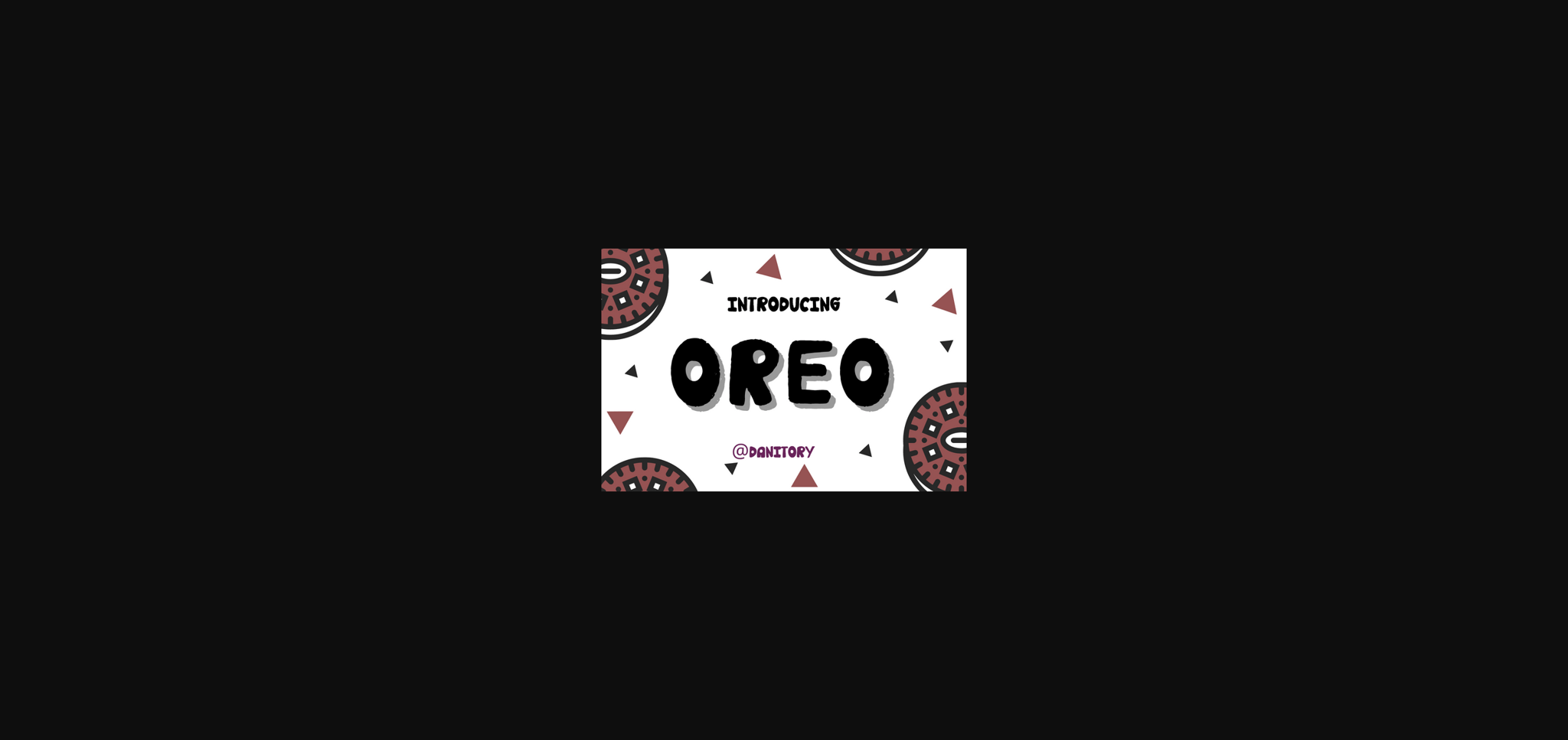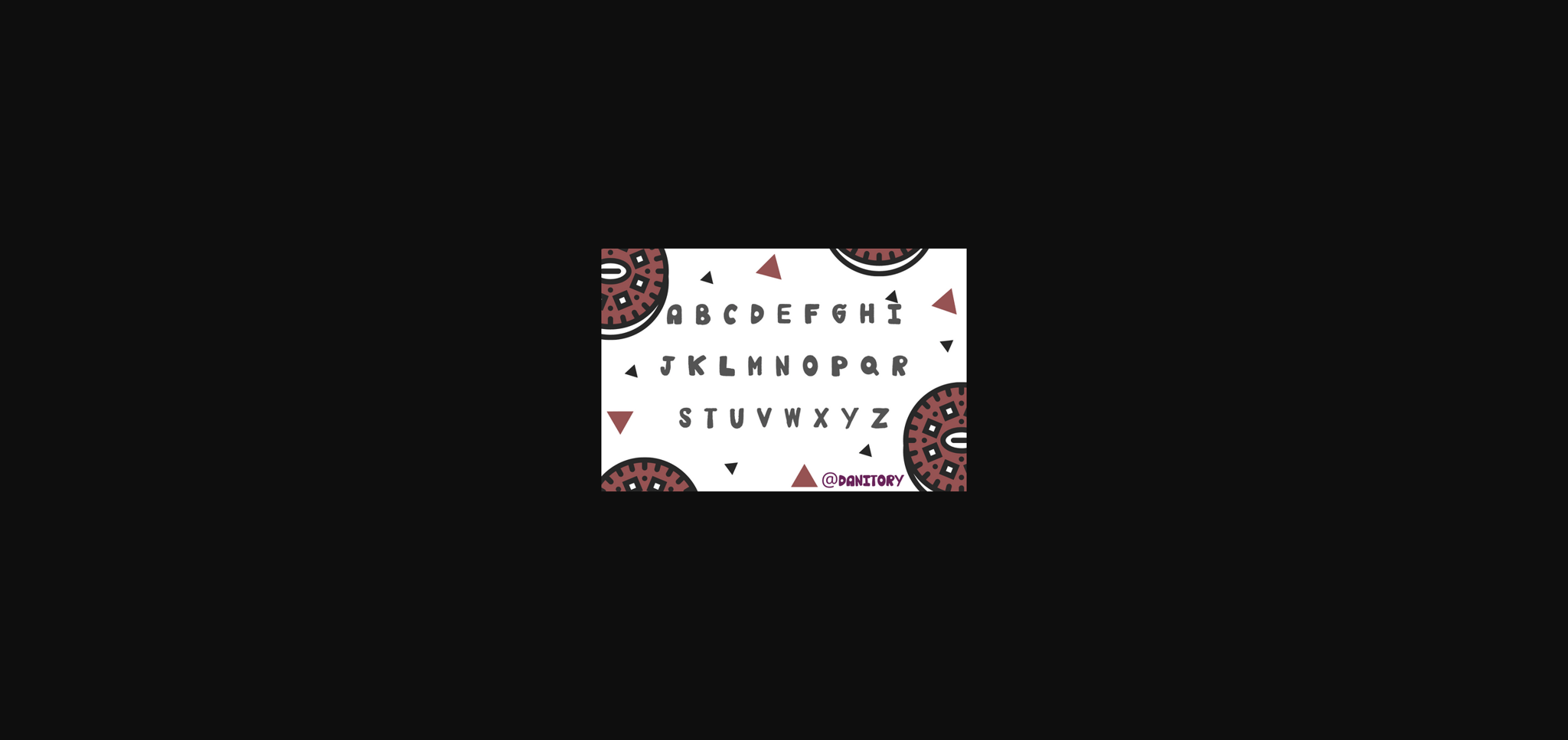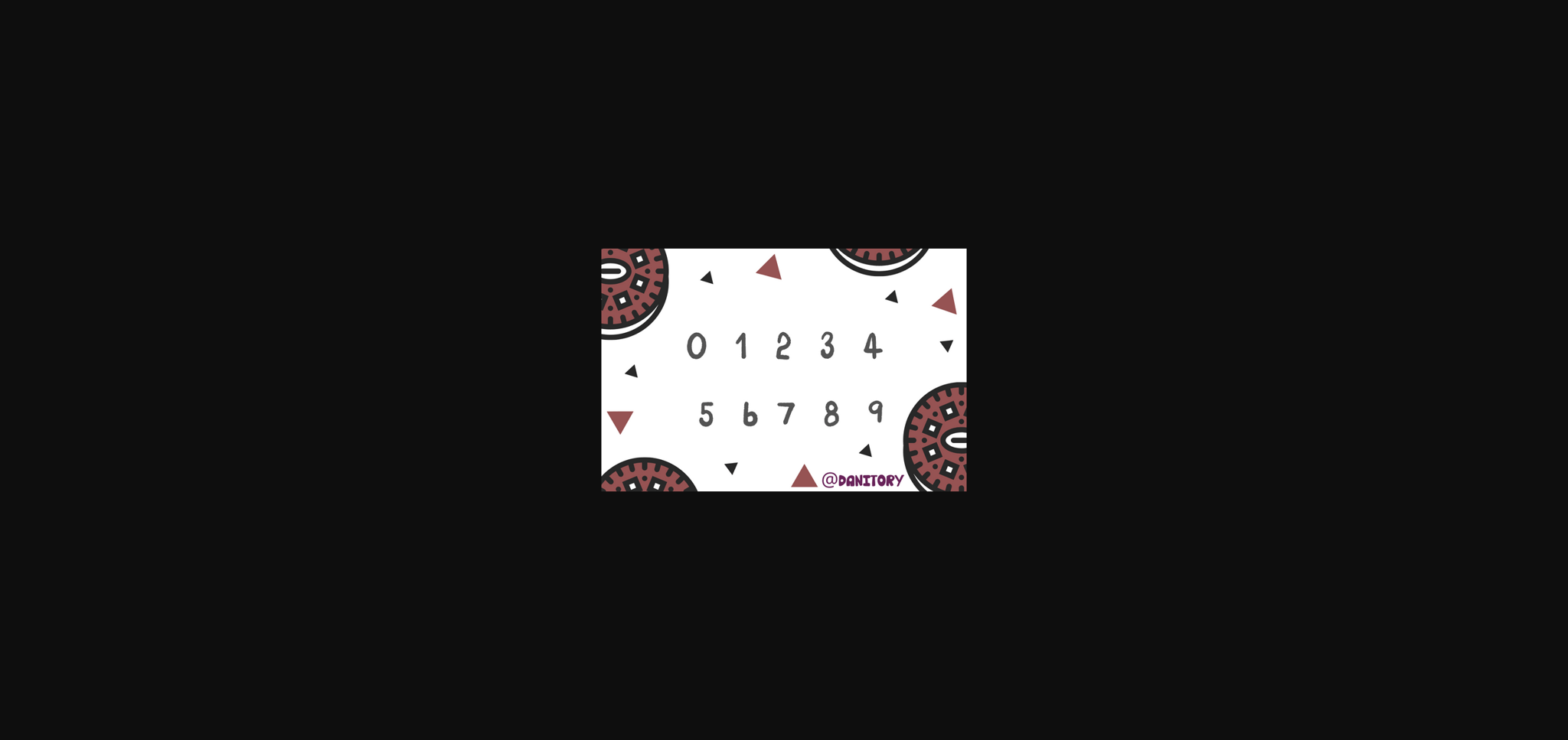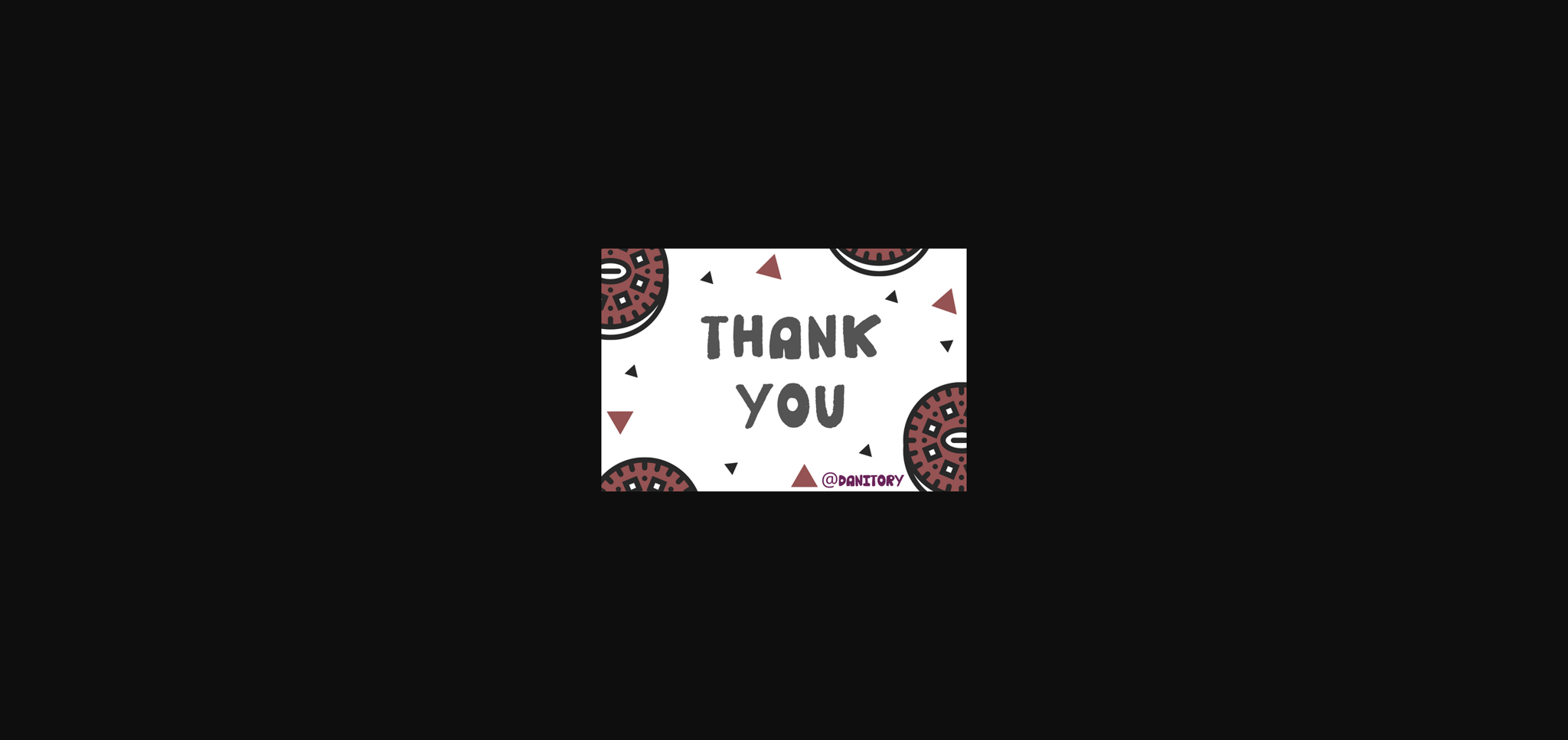
About Oreo Font
Oreo is a natural and fun sans serif font. It can easily be matched to an incredibly large set of projects, so add it to your creative ideas and notice how it makes them stand out! It is perfect for any branding project such as logos, t-shirt printing, creative products, or pretty much anything that could benefit from a quirky and fun vibe.